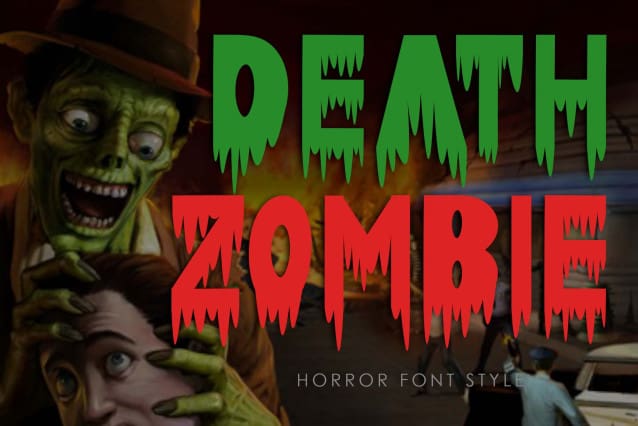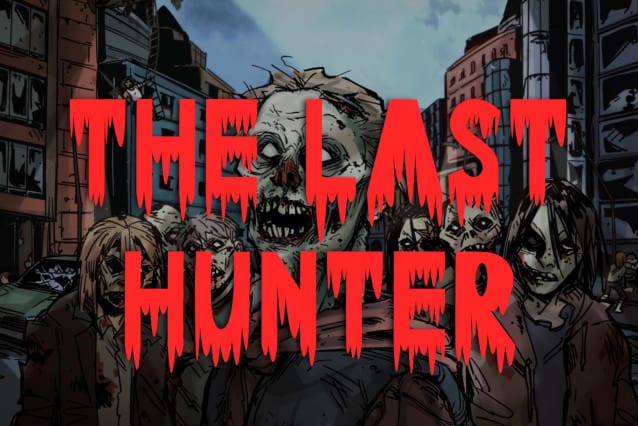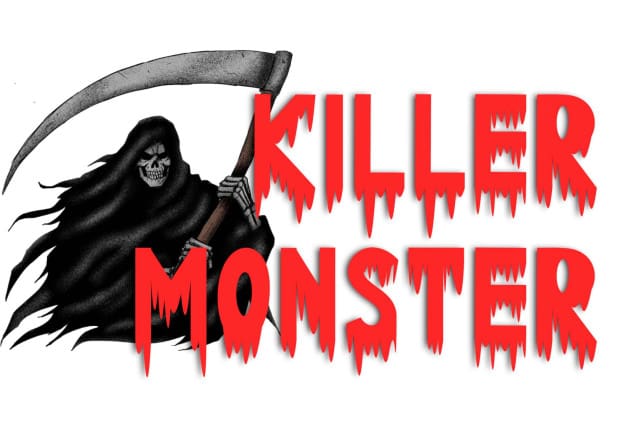
Death Zombie Font
Death Zombie Font is a unique horror font. This font is equipped with uppercase, lowercase, numerals, punctuations and multilingual support. Very suitable for use in Halloween, Halloween events, horror movies, comics, Christmas, cartoons, posters, banners, branding, stickers, prints, logos and others.